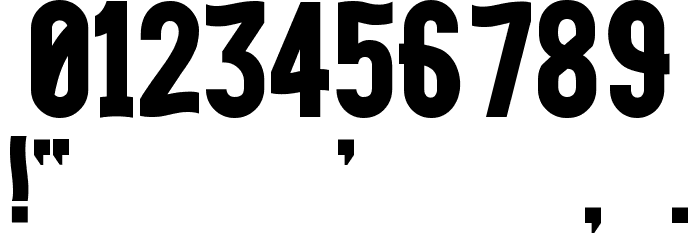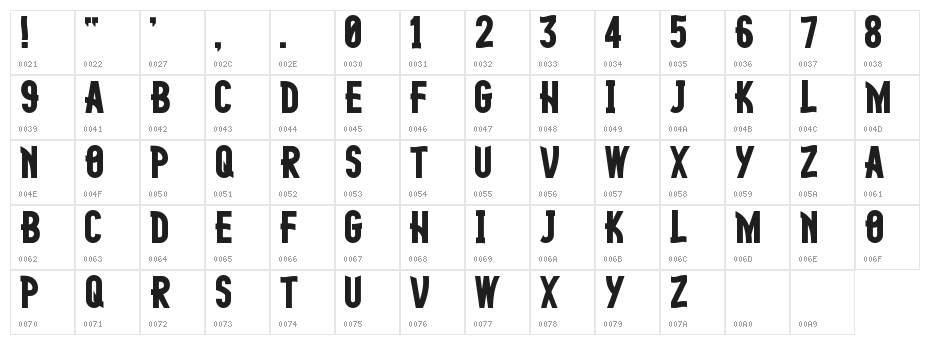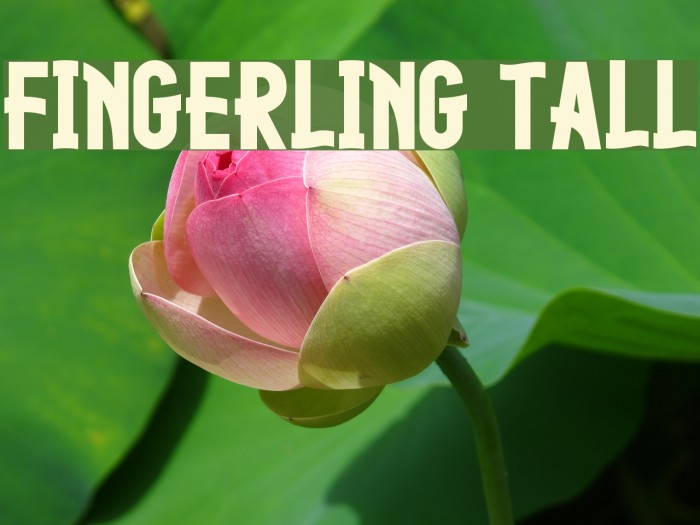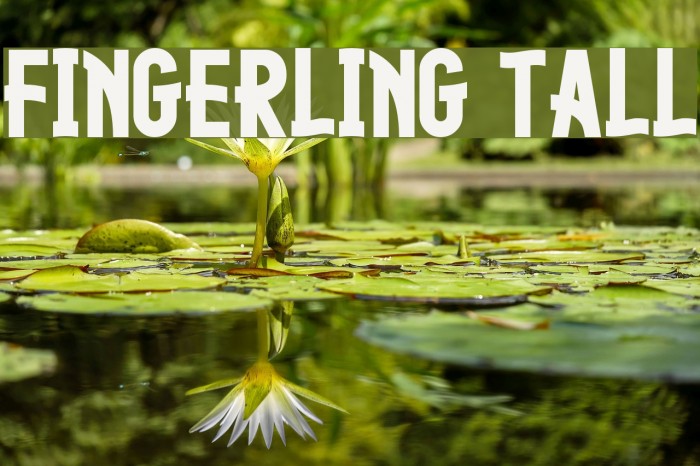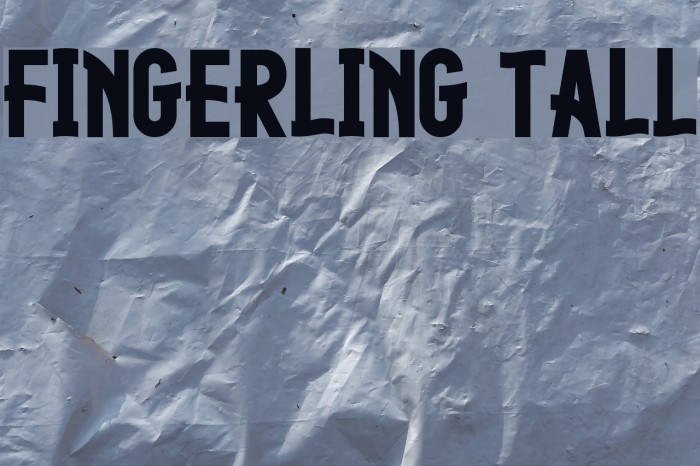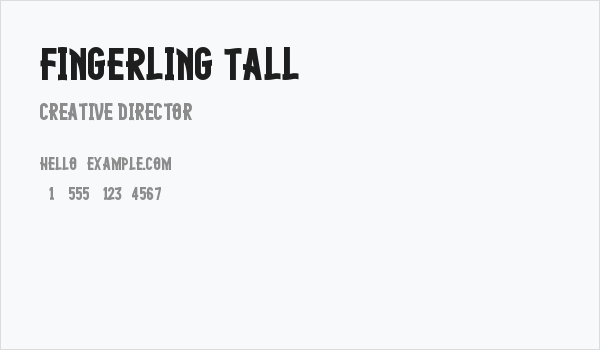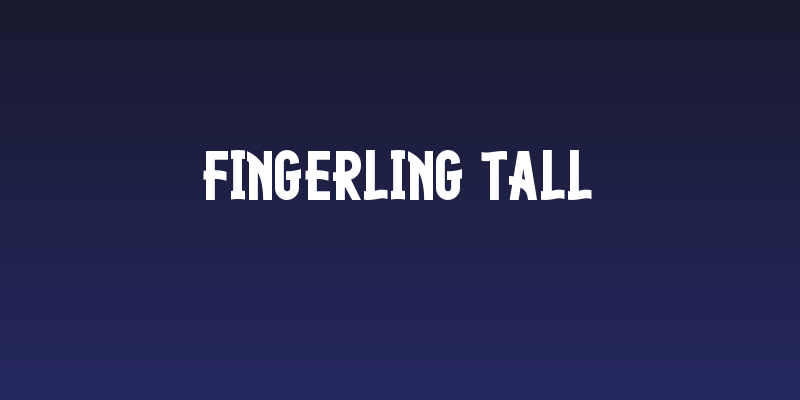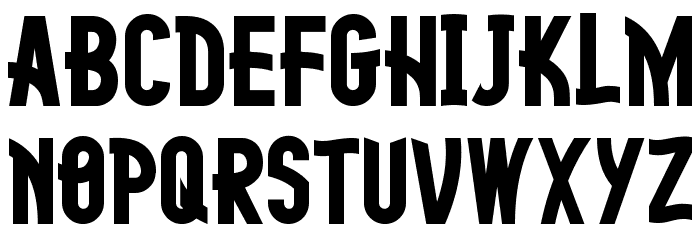
Fingerling Tall Font
Fingerling Tall Description
This font features a bold and striking design with a tall and narrow structure, giving it a distinctive and commanding presence. The characters are uniformly bold, with a slight curvature that adds a touch of playfulness to the otherwise strong and assertive appearance. The uppercase letters are particularly prominent, with a consistent height that emphasizes their verticality. The numbers and special characters maintain the same boldness, ensuring a cohesive look across all elements. The font's style is reminiscent of vintage poster typography, making it ideal for creating impactful headlines and attention-grabbing designs.